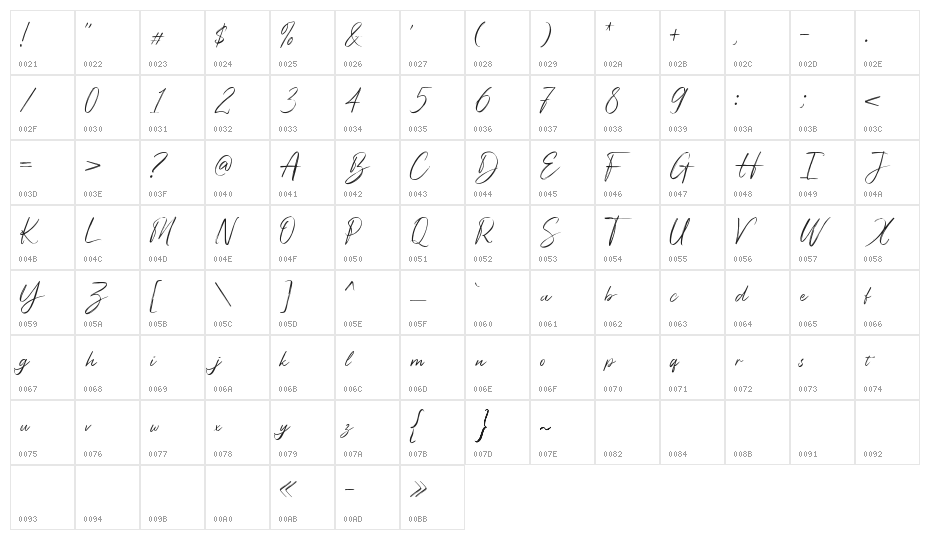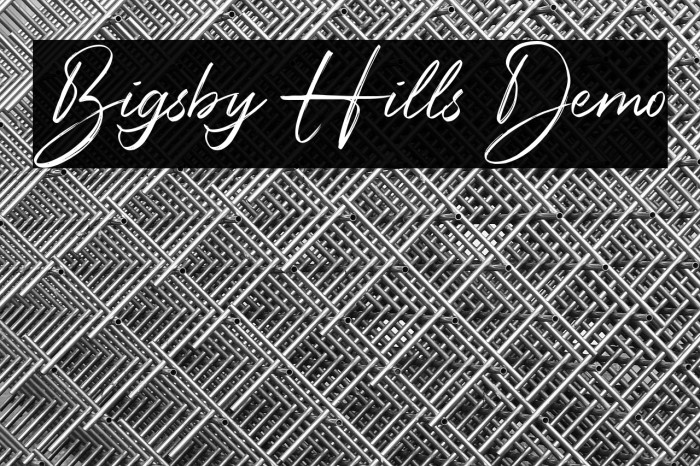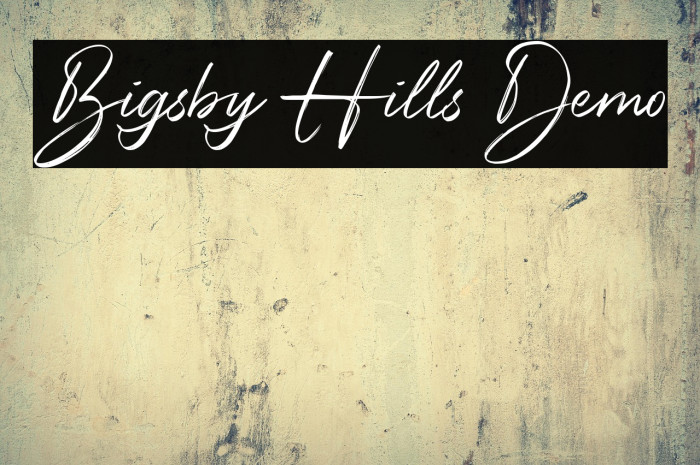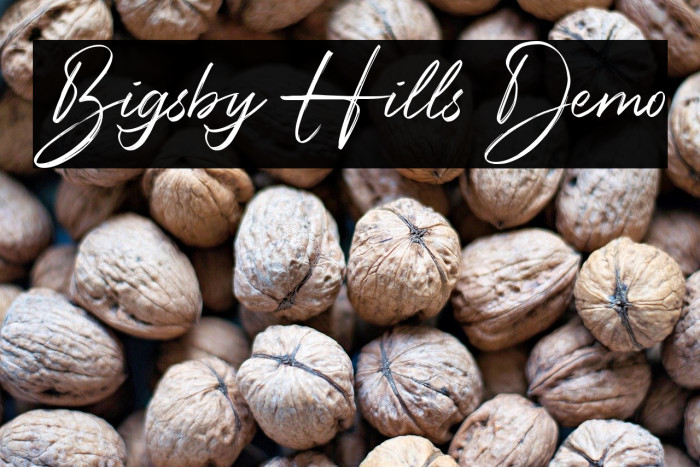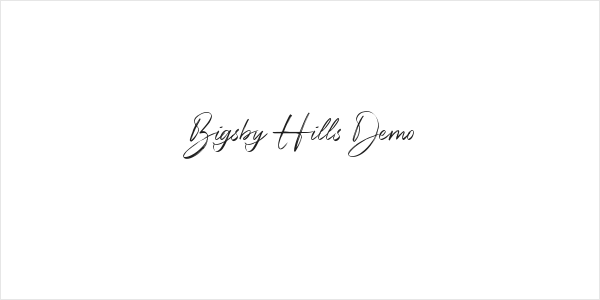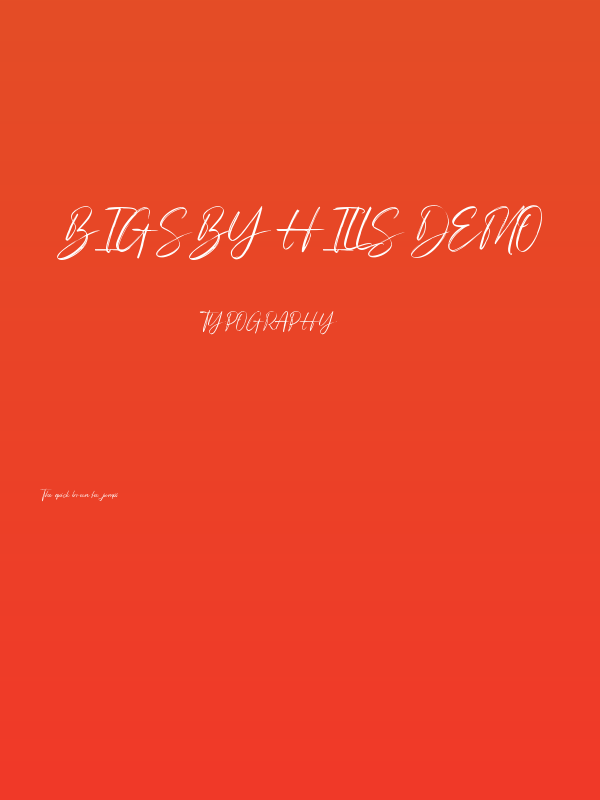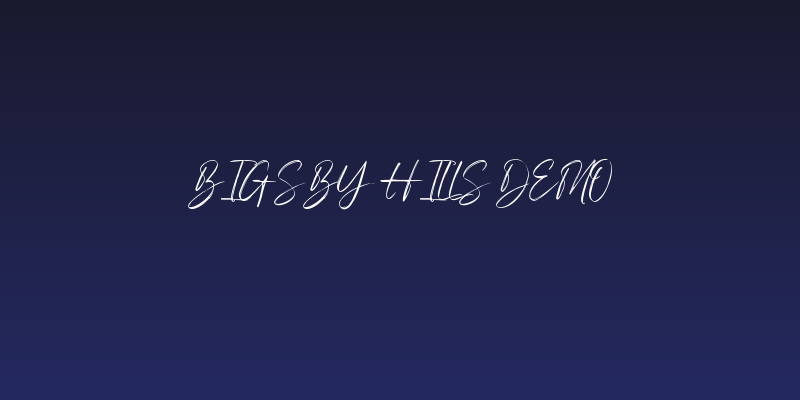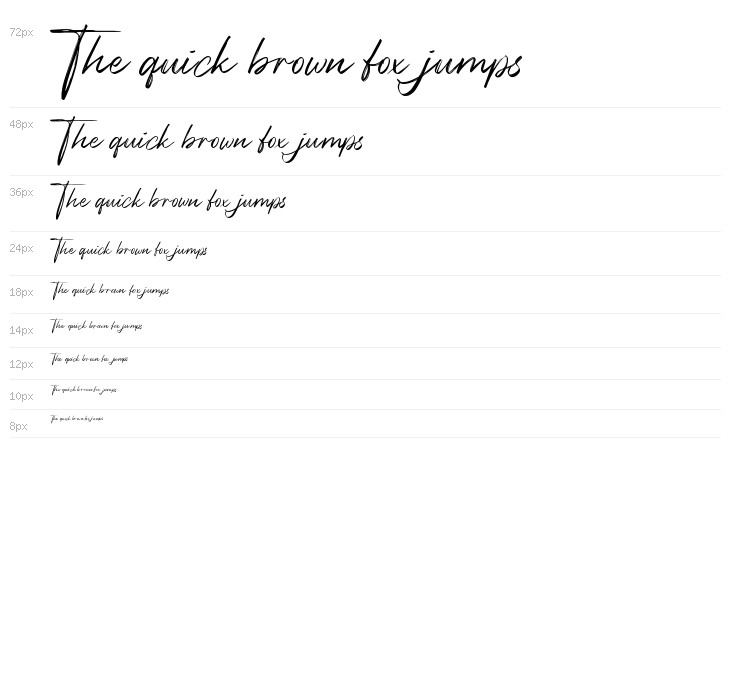
Bigsby Hills Demo Font
Bigsby Hills Demo Description
This font features a dynamic and elegant script style, characterized by fluid, sweeping strokes that convey a sense of motion and grace. The uppercase letters are tall and slender, with a slight slant that adds to the overall sense of elegance. The lowercase letters are more compact, maintaining the same fluidity and connectedness, which is a hallmark of cursive writing. The numerals and special characters are designed to match the script style, ensuring consistency across all glyphs. This font is perfect for projects that require a personal touch, such as invitations, greeting cards, or branding materials that aim to convey sophistication and style.
| Overall Style | Elegant, Modern |
| Proposed Projects | Ideal for invitations, greeting cards, branding, and any project needing a personal, elegant touch. |